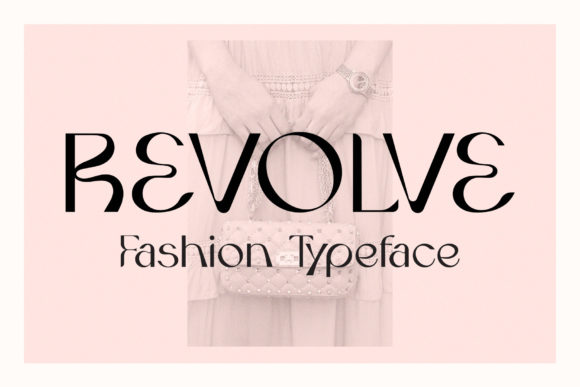
Dive into the realm of sophistication and style with Revolve Font, a fashion-forward display font that exudes elegance and poise. Inspired by the allure of fashion magazines, Revolve captivates with its striking thick-thin strokes, creating a visual symphony that dances across your designs.
With Revolve as your creative companion, embark on a journey of boundless possibilities. Elevate your branding with a logo that speaks volumes, captivating your audience with its refined charm. Let Revolve's allure enhance your social media presence, transforming your posts and stories into works of art. Unleash your creativity in advertising campaigns, crafting visuals that resonate with style and sophistication.
Revolve's versatility knows no bounds. It seamlessly blends into mood boards, effortlessly adding a touch of elegance to your visual concepts. Elevate your packaging designs with Revolve's refined presence, ensuring your products stand out on shelves. Make a bold statement in editorial design, letting Revolve's strokes command attention in magazines, brochures, and reports. Grace your headlines and titles with Revolve's captivating presence, ensuring your messages leave a lasting impression.
Revolve is a font that breathes fashion and speaks to the soul of style. Its meticulously crafted characters are a testament to the power of design, inviting you to create visuals that transcend the ordinary. Embrace Revolve and unlock a world of creative possibilities, where every design tells a tale of elegance and sophistication.